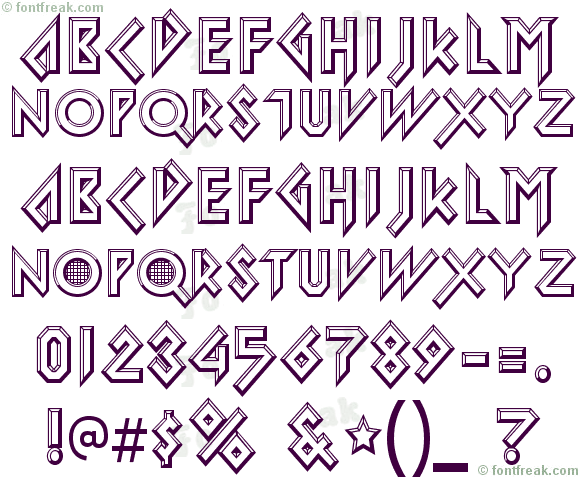
Iomanoid
Iomanoid, designed by Ray Larabie, is a striking display font that combines modern aesthetics with a retro vibe. As a decorative typeface, it features a unique blend of geometric shapes and bold, angular lines. The stroke weight is consistent, providing a strong visual presence that makes it ideal for attention-grabbing applications. The font exhibits a certain level of contrast, with its intricately designed letterforms that showcase circular elements and sharp angles, creating a dynamic visual rhythm. The spacing between characters is well-balanced, ensuring readability while maintaining a stylish flair.
This font is particularly suitable for a variety of creative projects. It works exceptionally well for movie posters, where its eye-catching design can draw viewers in. Additionally, Iomanoid is a great choice for music event flyers, adding a sense of energy and excitement. Graphic designers can also utilize it for branding purposes, giving logos and promotional materials a distinctive character. Small business owners can enhance their café menus or shop signage with this font, making their offerings stand out to customers. Content creators looking to add flair to their social media graphics or website headers will find Iomanoid to be an excellent fit.
The target audience for this font includes graphic designers, small business owners, and content creators who appreciate bold, expressive typography. Its unique style makes it a versatile choice for various applications.
What sets Iomanoid apart is its ability to blend art and functionality seamlessly. The font's playful yet structured design allows it to adapt to numerous contexts while maintaining a strong visual identity. For those interested in exploring this unique typeface, the Iomanoid font free download is available, making it accessible for all creative endeavors.